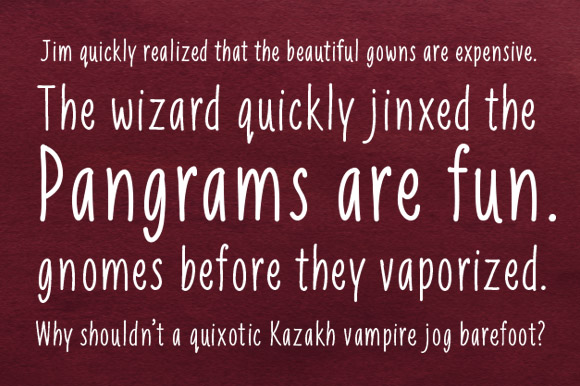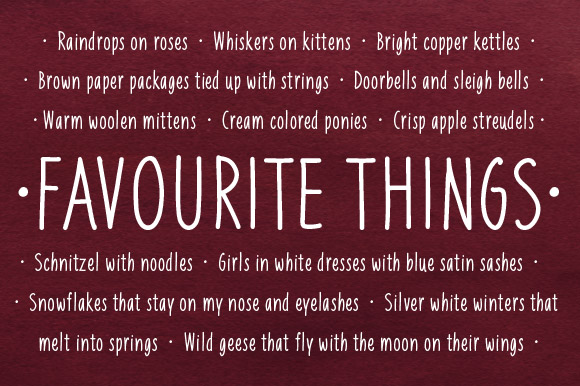
Liniga Font
About Liniga Font
Liniga is a tall, friendly handwritten font. The font has a simple structure and low contrast. It works great for body text but also can be used as a display font.